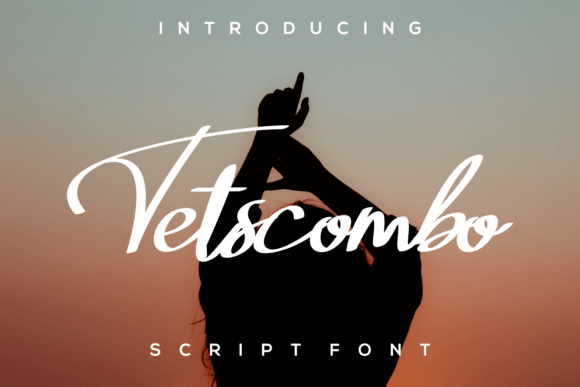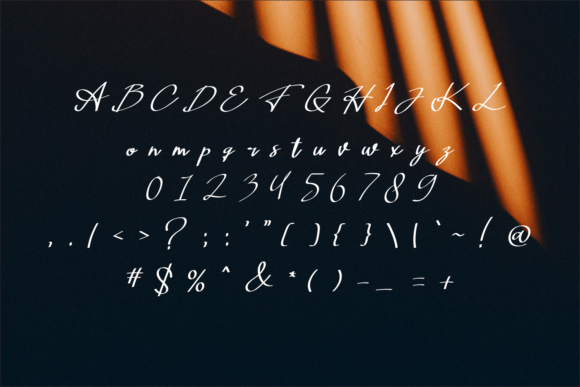
About Tetscombo Font
The Tetscombo Font Download is a beautiful and light handwritten script that delivers a unique and memorable impact. With its elegant, flowing strokes and smooth details, Tetscombo combines the charm of natural handwriting with professional precision. This balance allows it to fit a wide range of creative and commercial projects.
Designed with personality and style, Tetscombo adds a luxury spark to your work. Whether you’re designing wedding invitations, logos, quotes, or product packaging, this font adapts effortlessly and enhances your projects with sophistication and originality.
Features of Tetscombo Font
Beautiful handwritten script with a graceful flow
Lightweight and elegant strokes for stylish design work
Complete character set including uppercase, lowercase, numerals, and punctuation
Unique handwritten personality that makes designs stand out
High readability across print, digital, and craft applications
Best Uses for Tetscombo Font
The Tetscombo Font Download works wonderfully in both personal and professional projects, such as:
Wedding invitations and stationery – Add a romantic and timeless handwritten touch
Greeting cards and thank-you notes – Perfect for heartfelt, elegant designs
Logos and branding – Great for boutique shops, fashion brands, or artisan businesses
Product packaging – Stylish labels for handmade goods, food items, or cosmetics
Quotes and wall art – Transform words into eye-catching, sophisticated displays
Social media graphics – Add charm and personality to Instagram posts or Pinterest pins
Event promotions and posters – Highlight special occasions with elegance and flair
Why Choose Tetscombo Font
The Tetscombo Font Download stands out because it combines delicate handwritten elegance with professional usability. Unlike fonts that are either too decorative or overly minimal, Tetscombo achieves the perfect balance of beauty and clarity.
Designers love Tetscombo for its lightweight strokes, refined charm, and versatility. It adapts seamlessly to different creative contexts, from wedding stationery to branding campaigns, while maintaining its unique personality. Its ability to enhance both formal and casual designs makes it a reliable and timeless choice.
The Tetscombo Font Download is a beautiful, light handwritten script that brings luxury, elegance, and uniqueness to your designs. With its graceful strokes, versatile usability, and polished details, it’s perfect for invitations, logos, packaging, social media, and more.